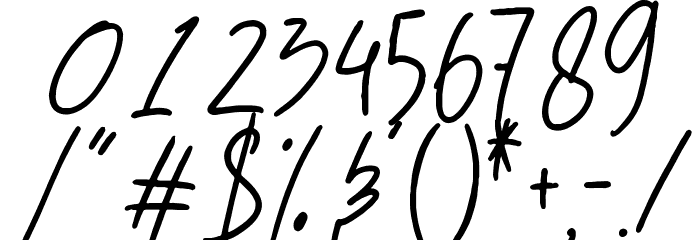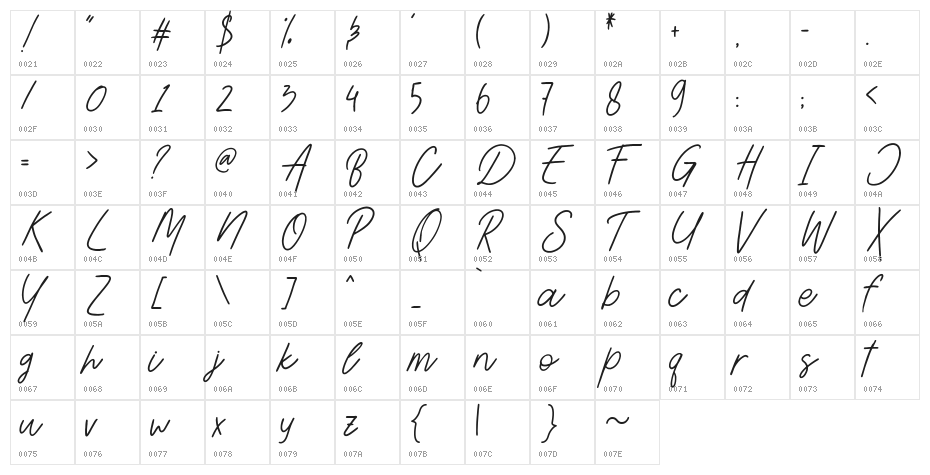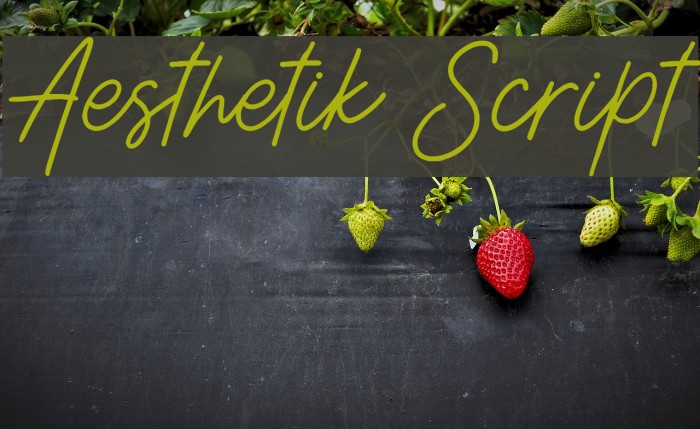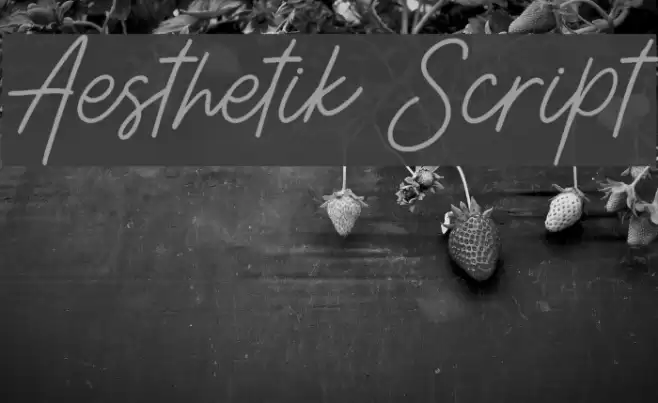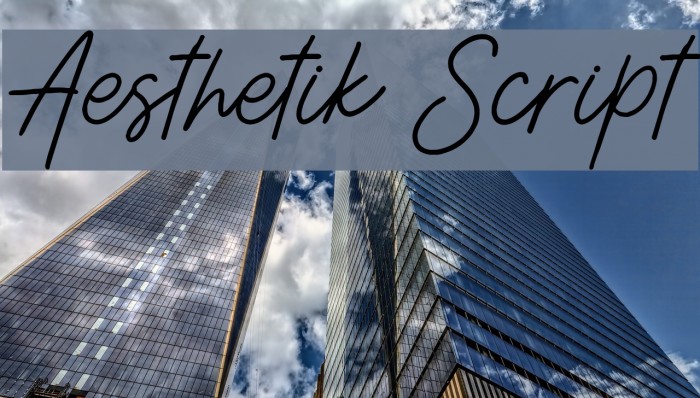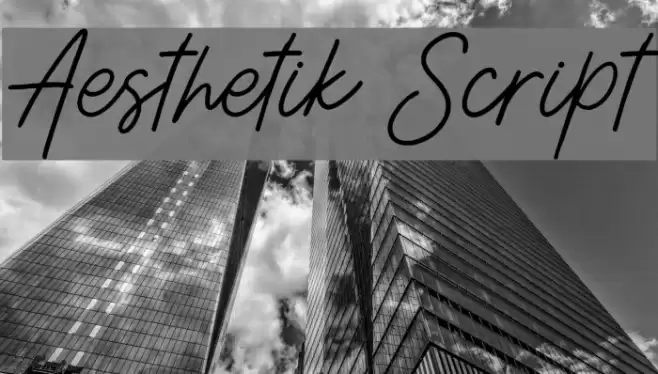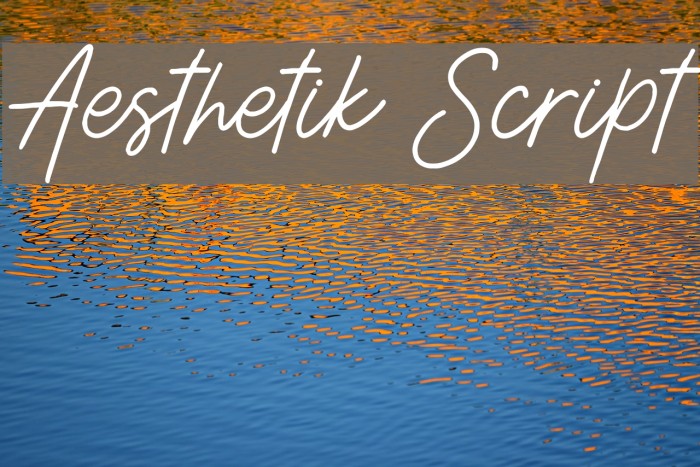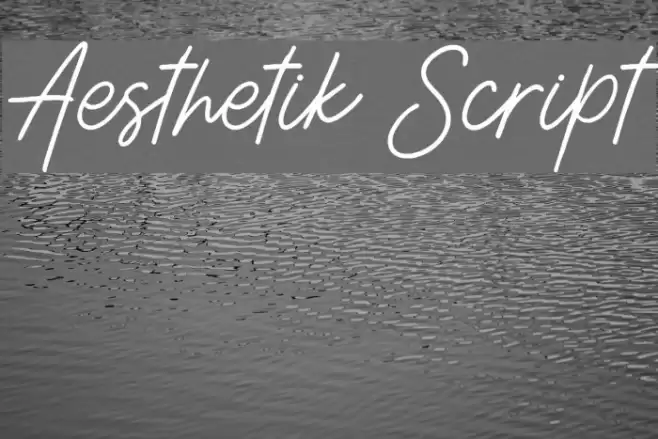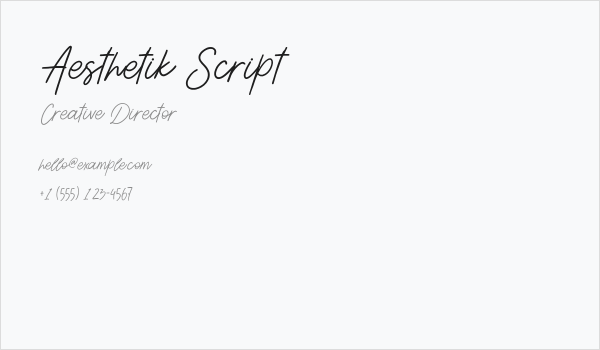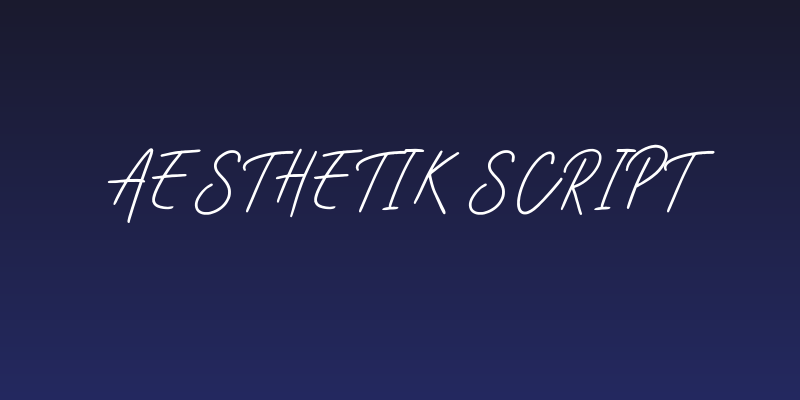
Aesthetik Script Font
Aesthetik Script Description
This script font exudes a casual, handwritten style with a fluid and dynamic appearance. The uppercase letters are slightly slanted, giving a sense of movement and elegance. The lowercase letters maintain a consistent flow, enhancing readability while retaining a personal touch. Numbers are clear and distinct, with a playful yet sophisticated feel. Special characters are well-integrated, maintaining the overall aesthetic. The strokes are smooth and consistent, with a medium contrast that adds to the font's legibility and charm.
| Proposed Projects | Ideal for personal branding, invitations, greeting cards, and creative projects that require a personal touch. |